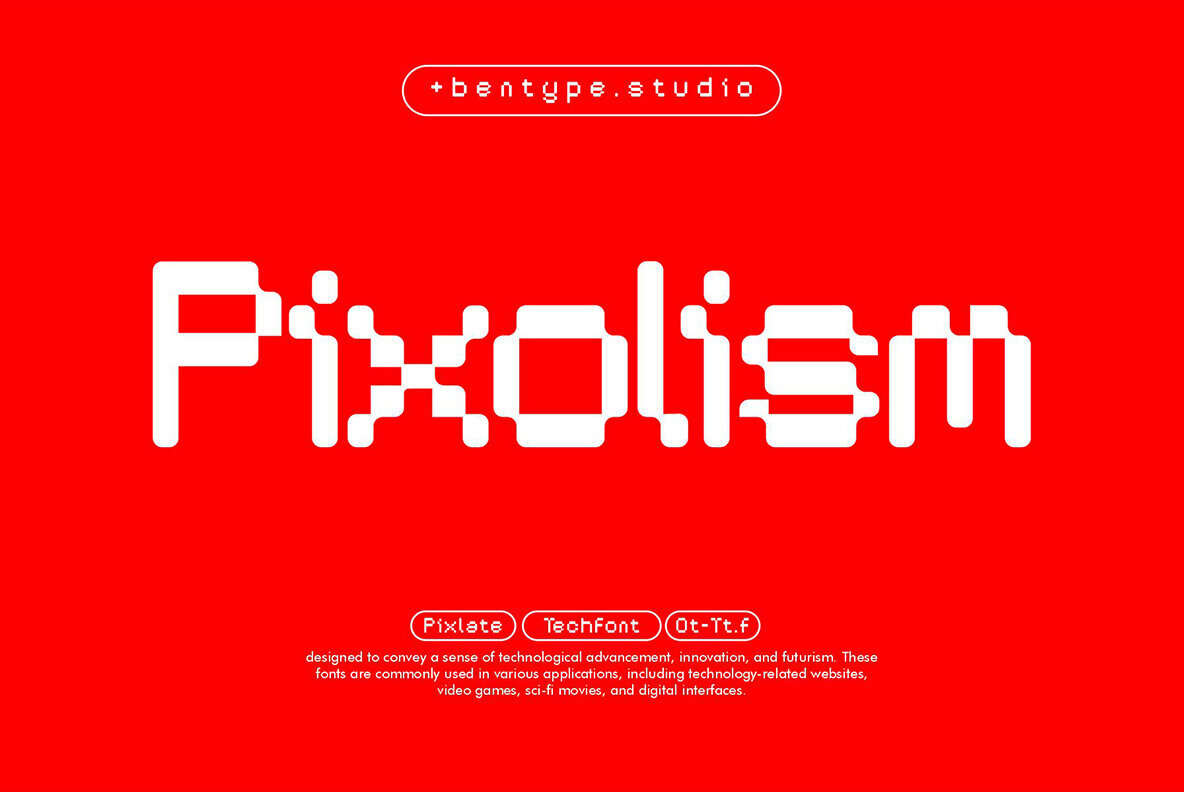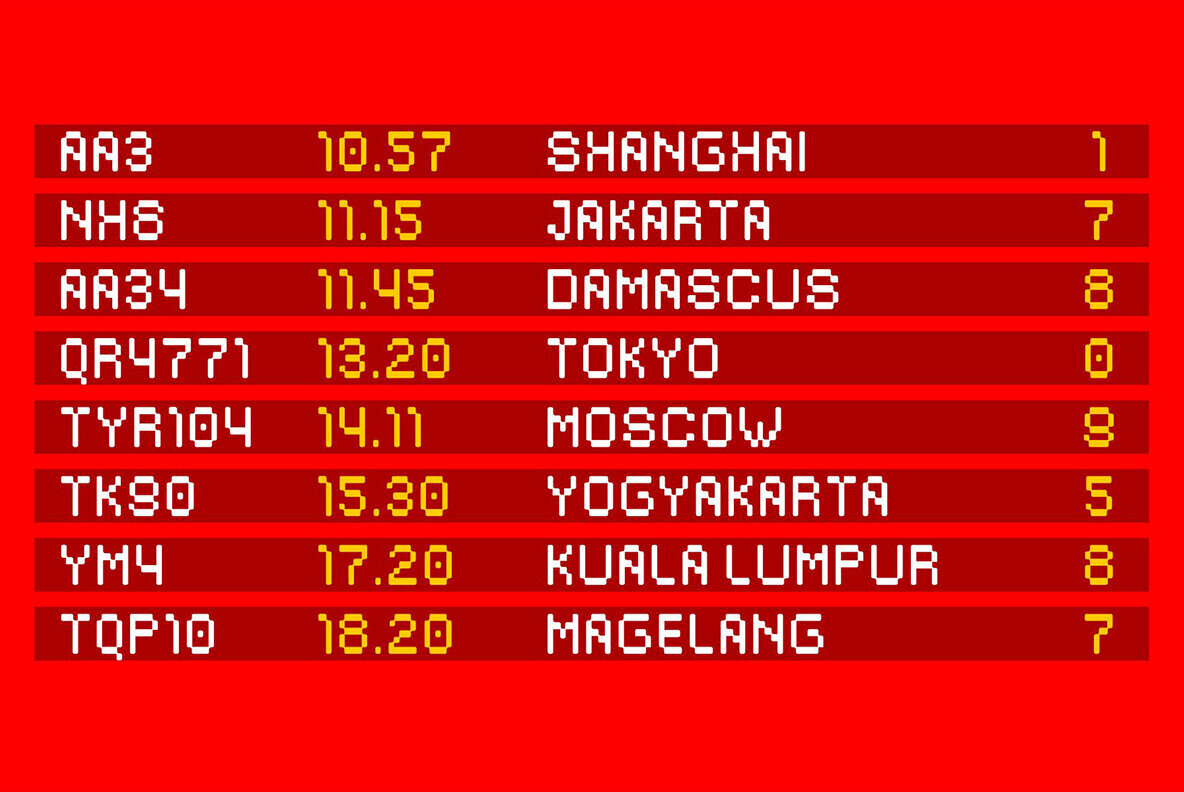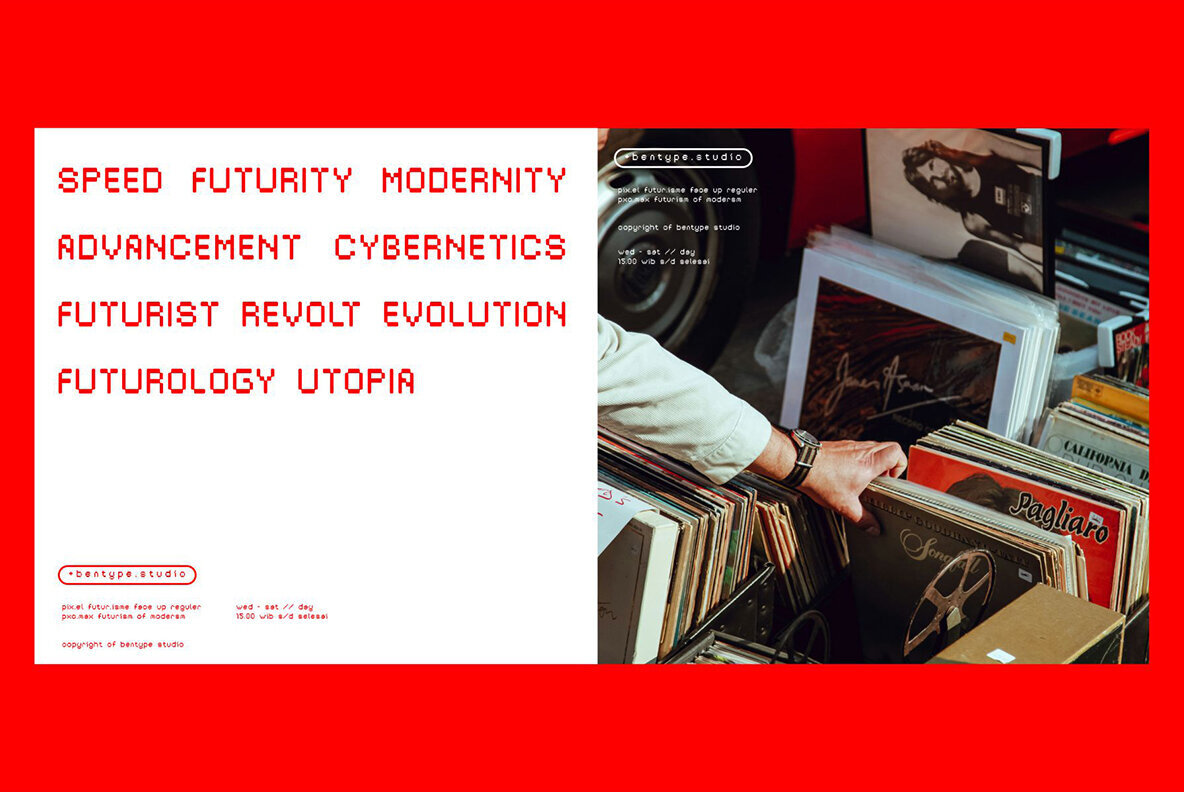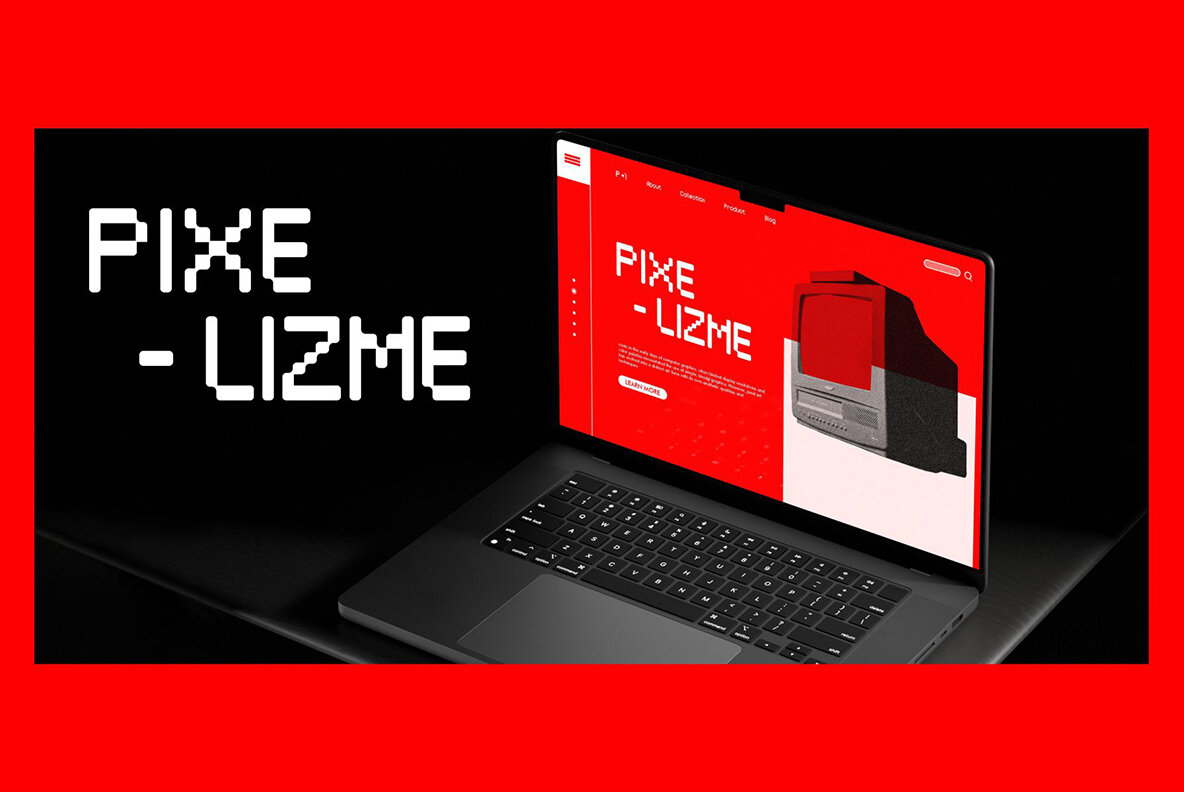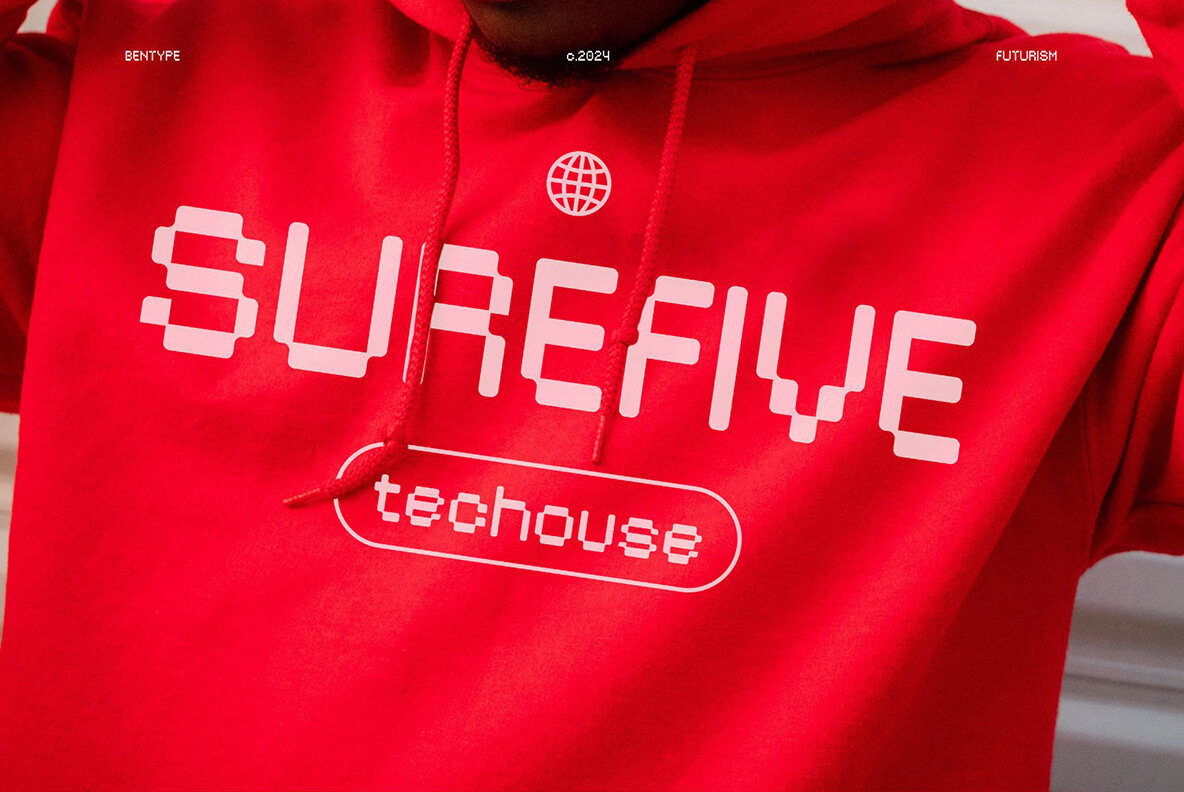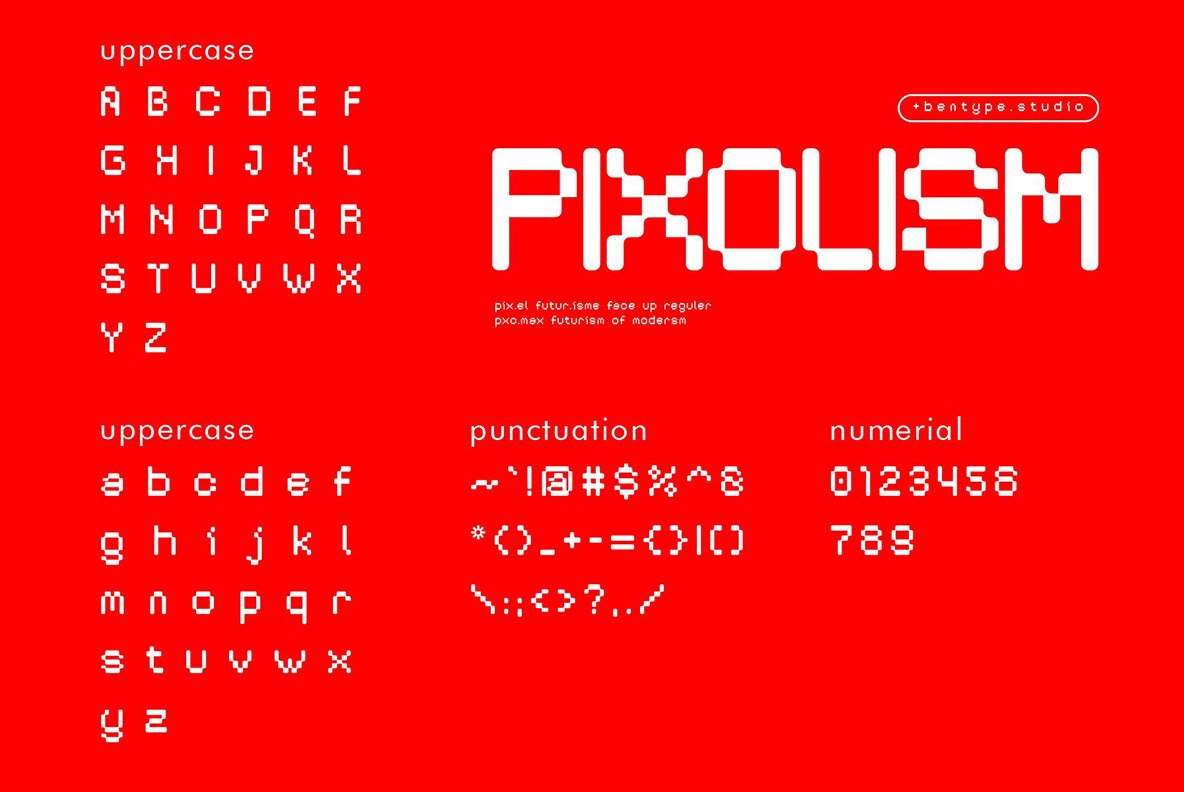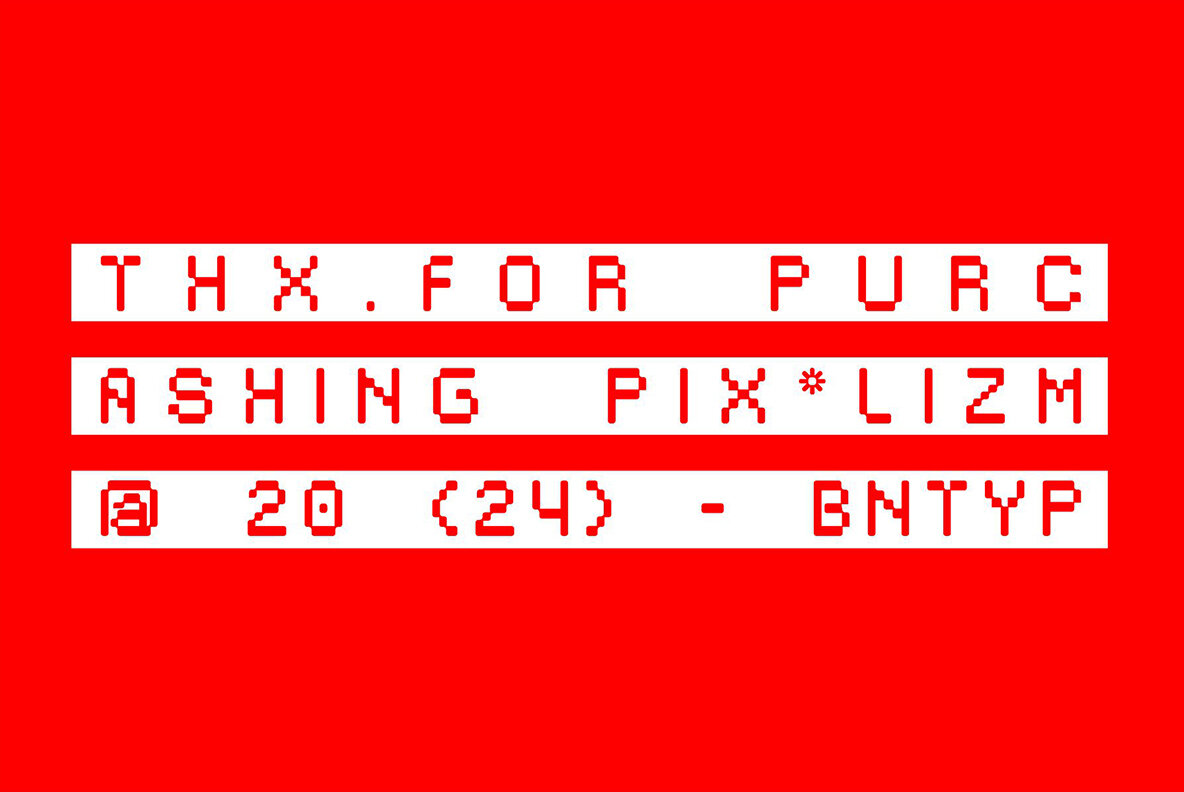
Pixolism Font
Pixolism
Pixolism delivers a unique, retro aesthetic that caters to digital projects seeking a nostalgic touch. Designed as a pixel font, it conveys a distinct visual charm reminiscent of old-school technology, perfect for any low-resolution display needs.Pixolism: The Retro Tech Display Font